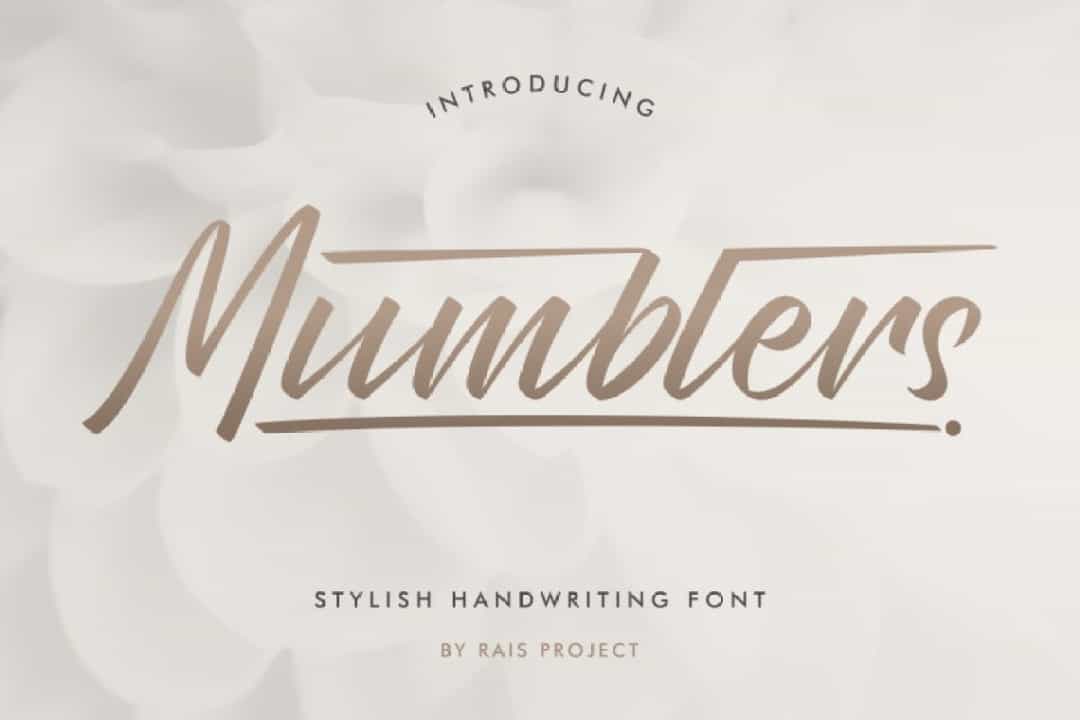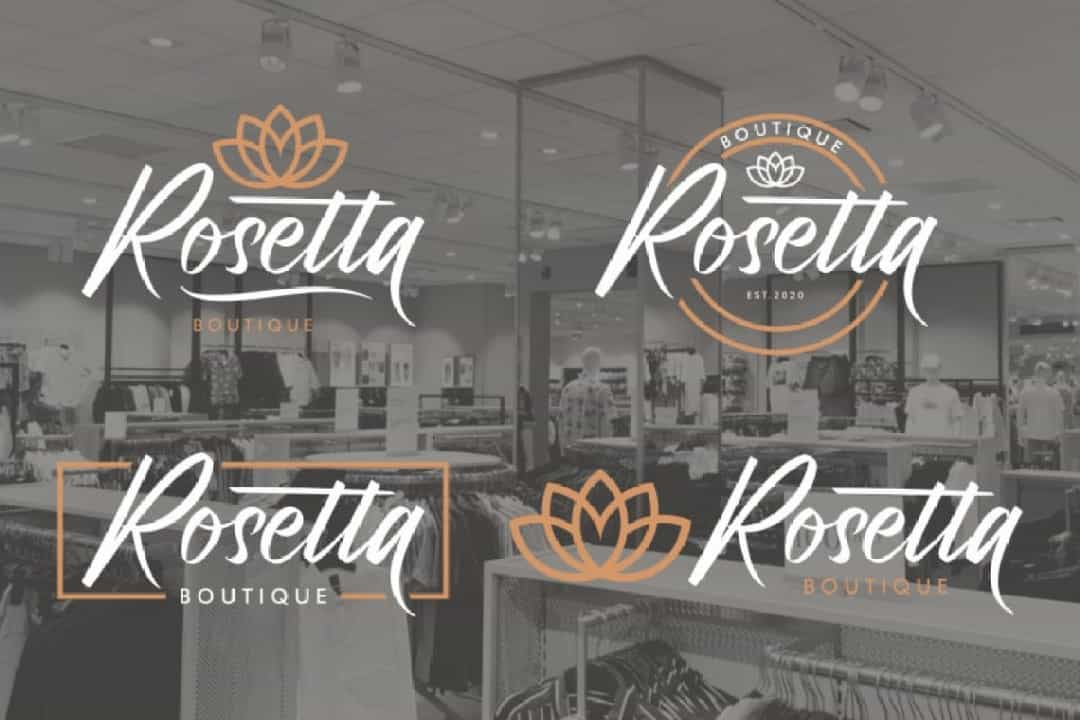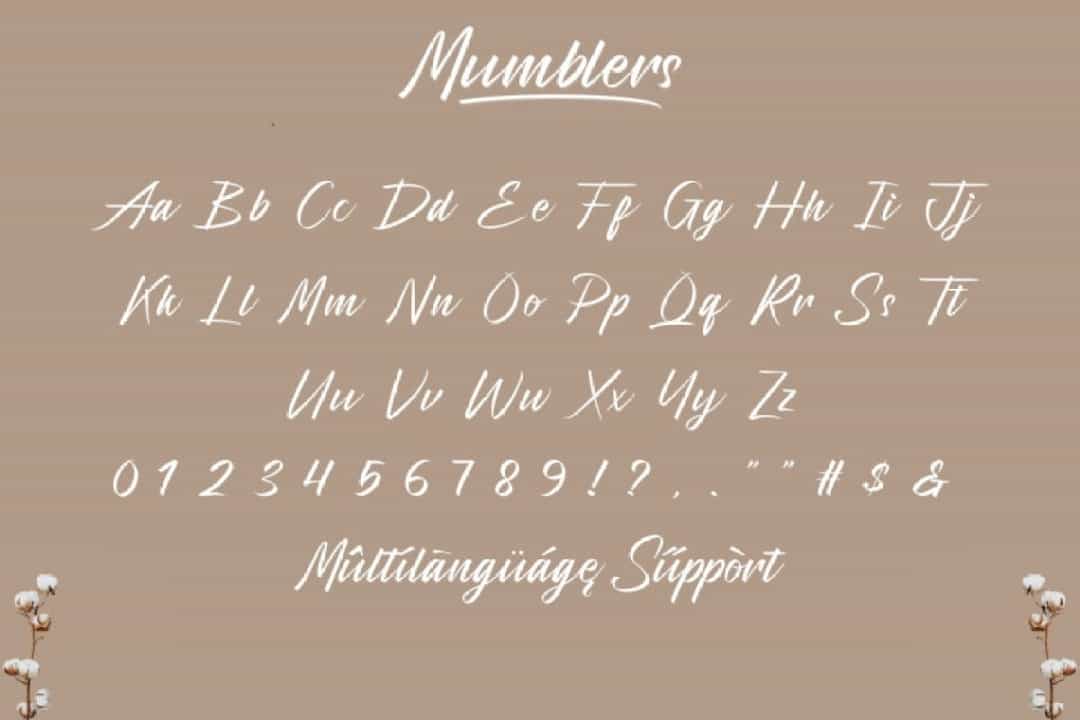
Discover Mumblers Font, part of the Handwritten Script Personal collection—a versatile and unique font perfect for adding a personal touch to your projects. Download it for free and enjoy crafting designs with style, from invitations to social media posts. This font is available exclusively for personal use, giving you the freedom to create without limits. Unlock your creativity with Mumblers Font today!
Mumblers Stylish Handwritten Script Font was made in the way that all the letters were written by hand. Featuring its beautiful characters, Mumblers will definitely add a lasting impression in all your projects – weddings, events, promotions, branding, advertising, magazines, shopping, signs, invitations, stationery, social media posts, packaging designs, product packaging, label, photo watermark and any other projects that needs handwriting or calligraphy!